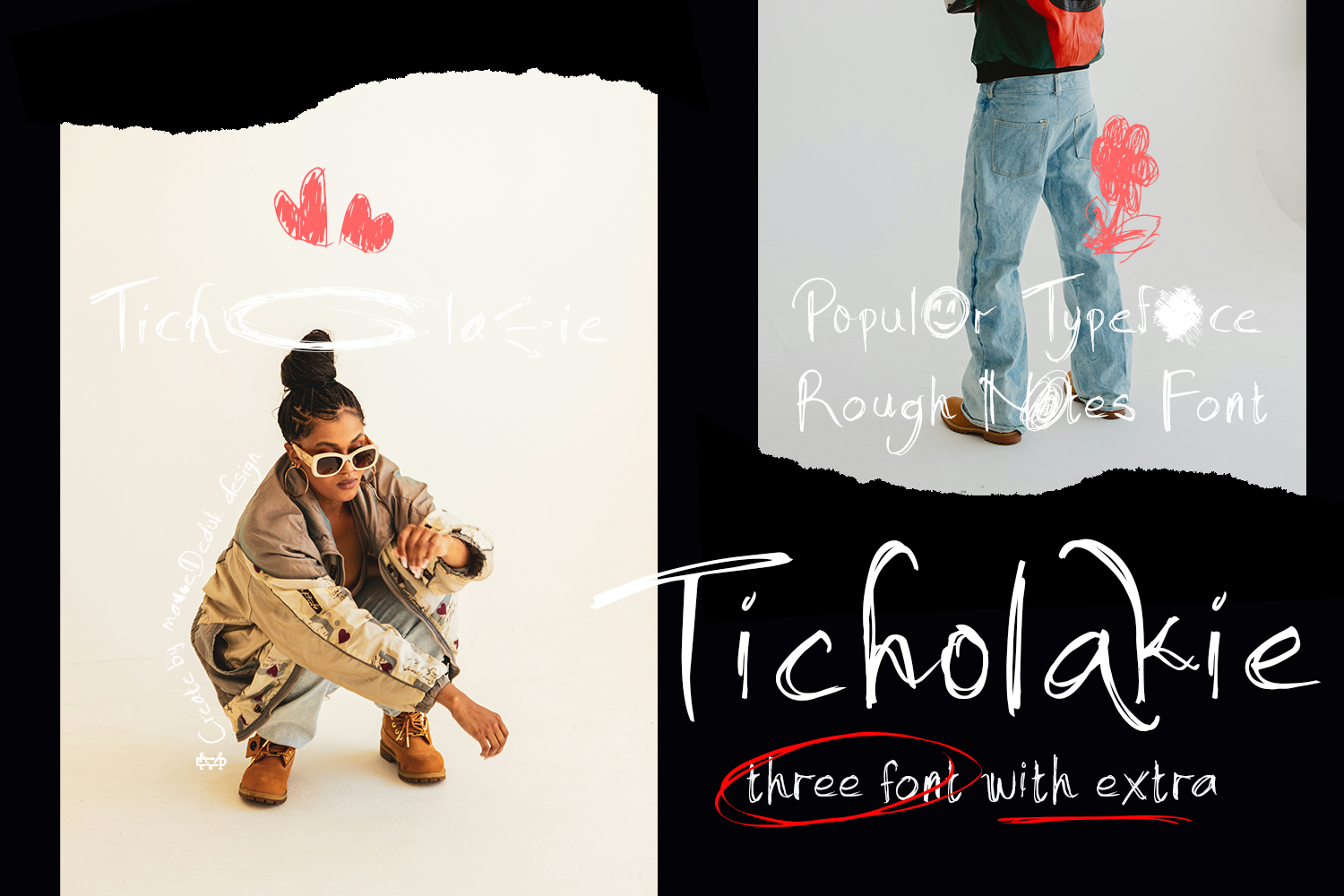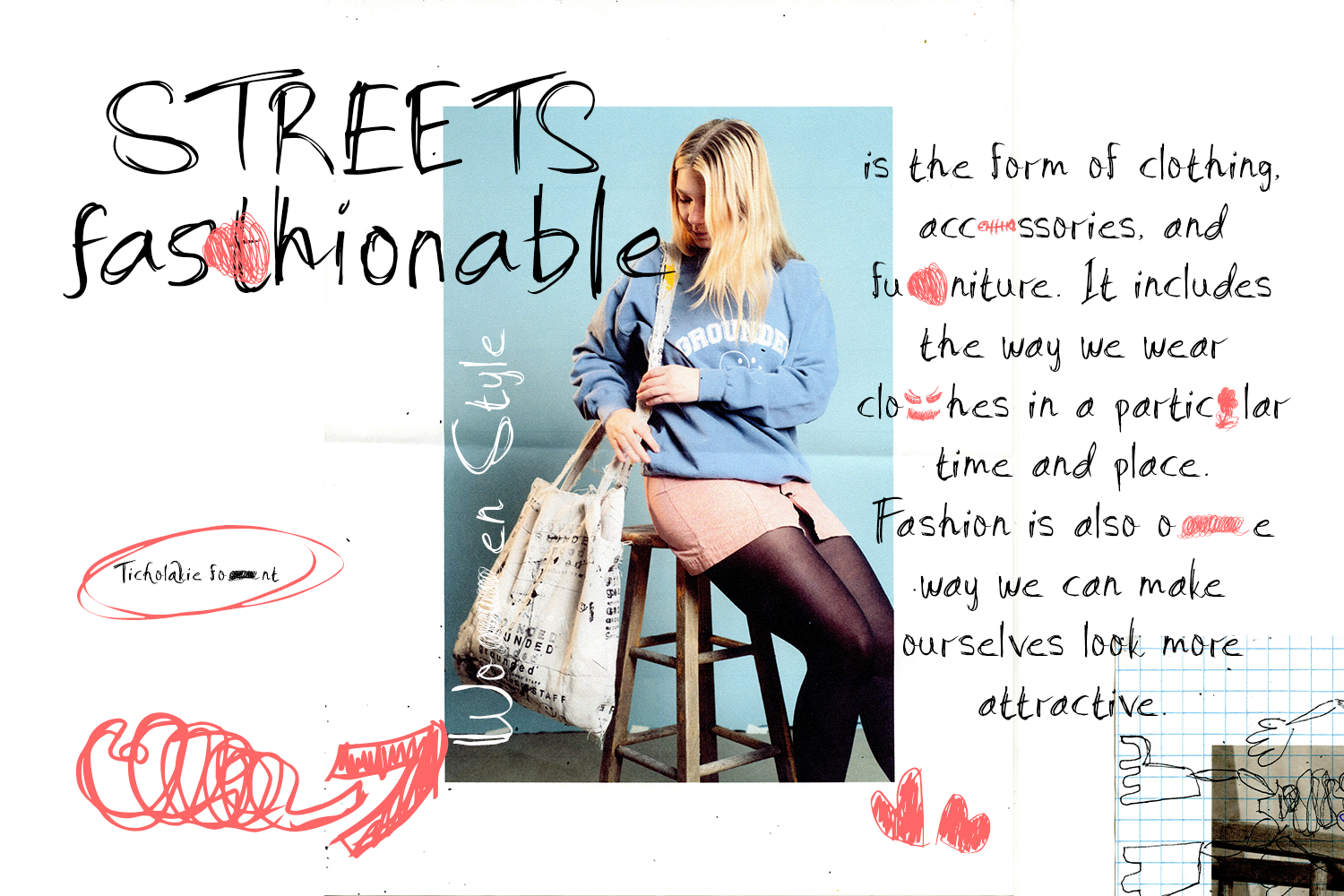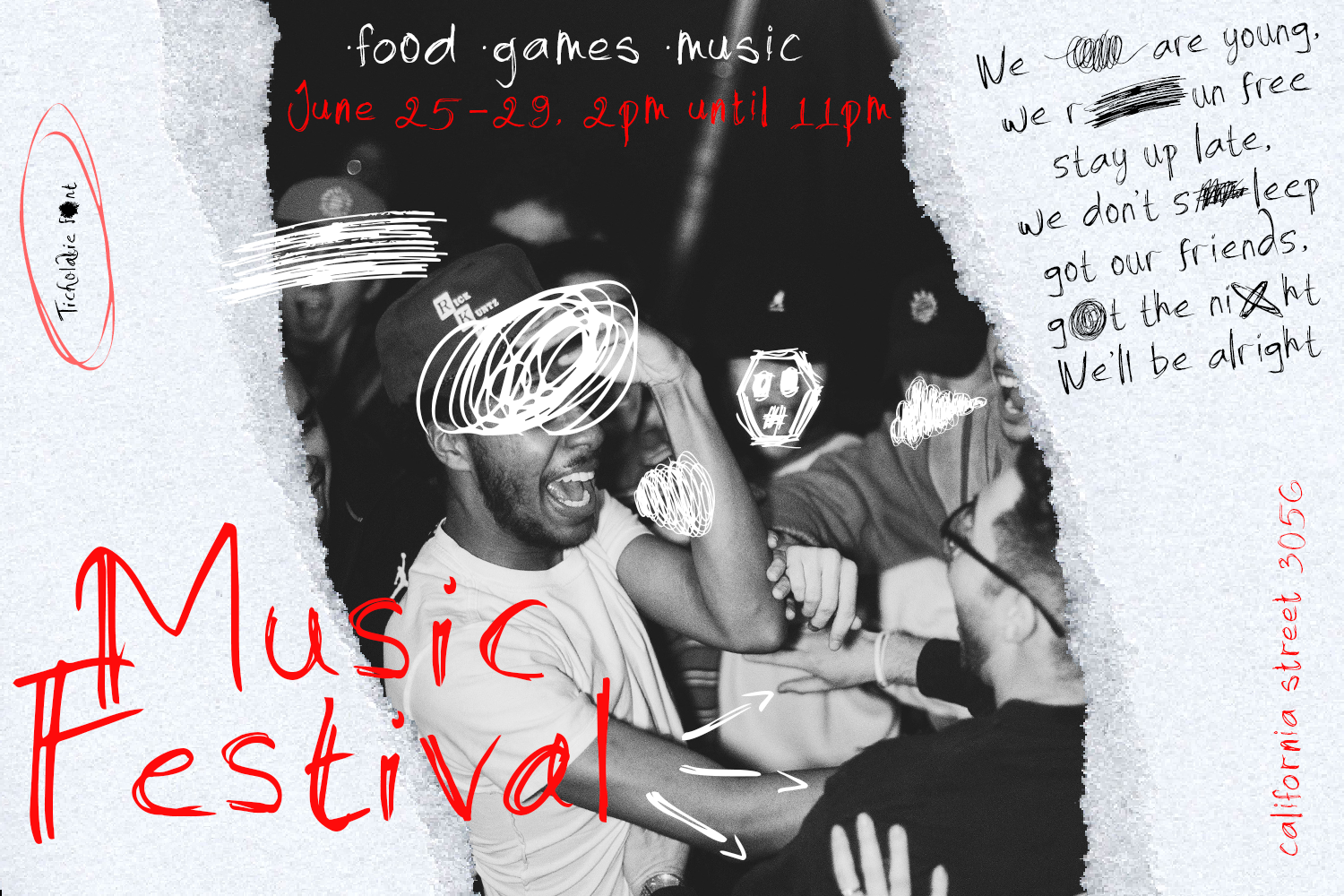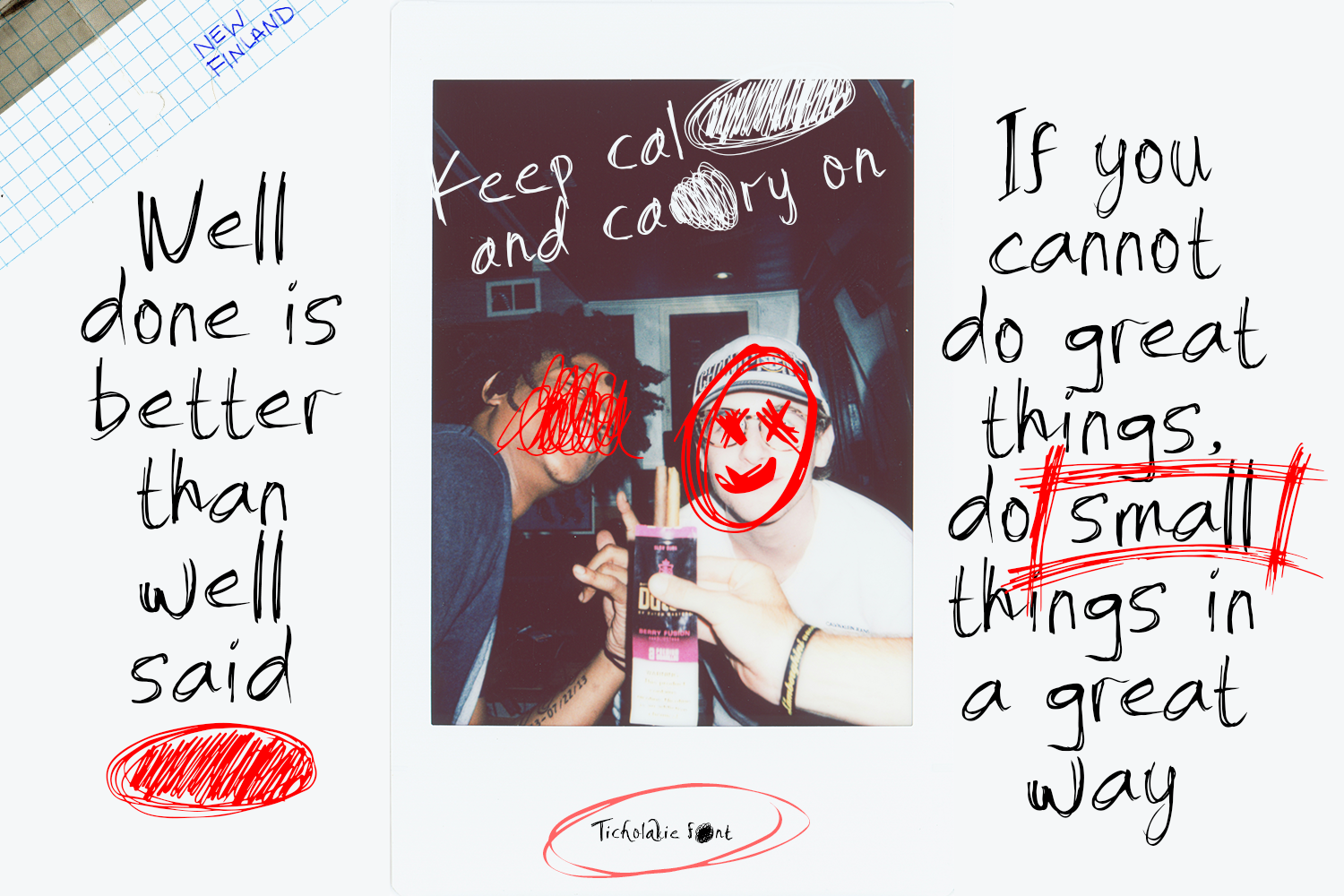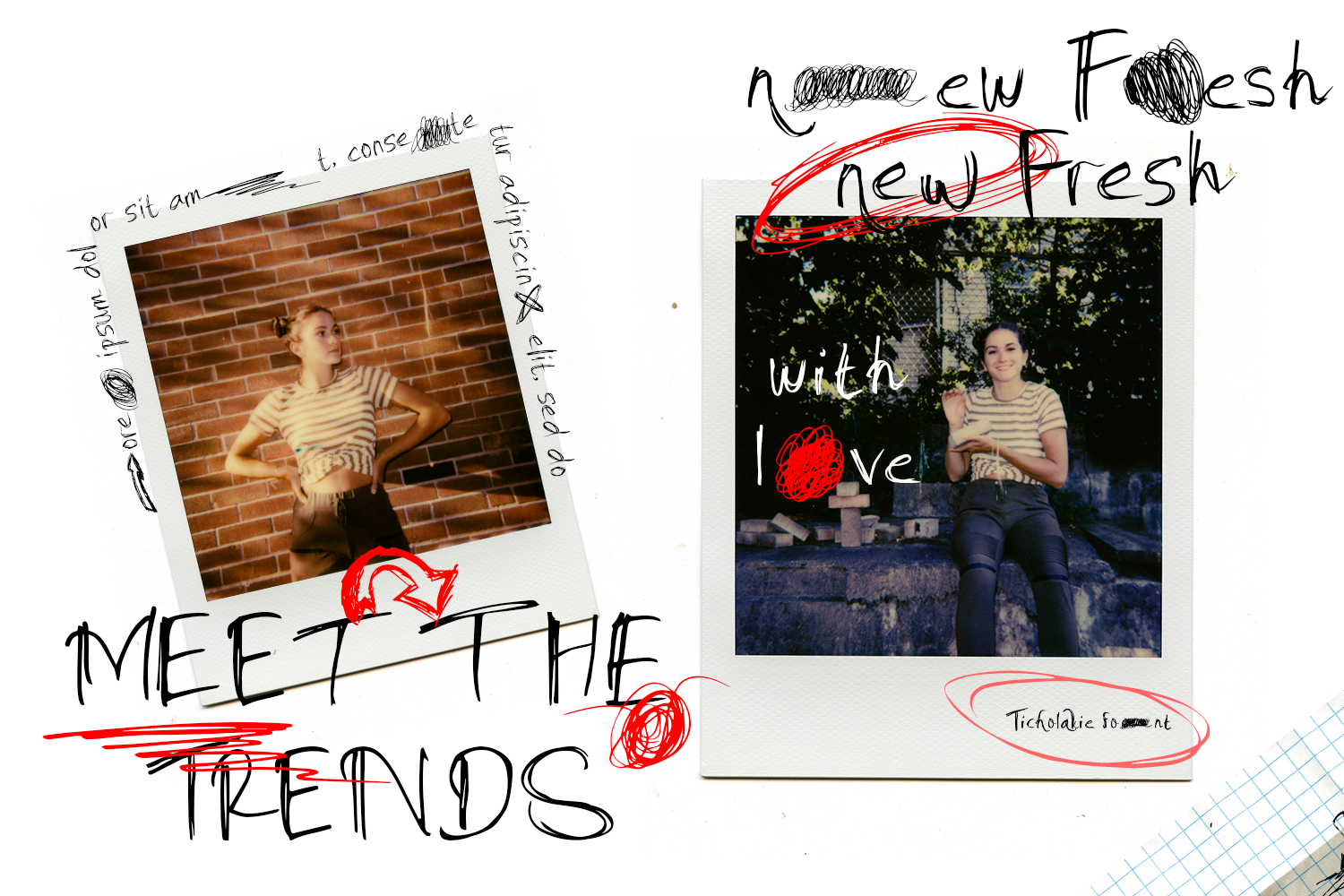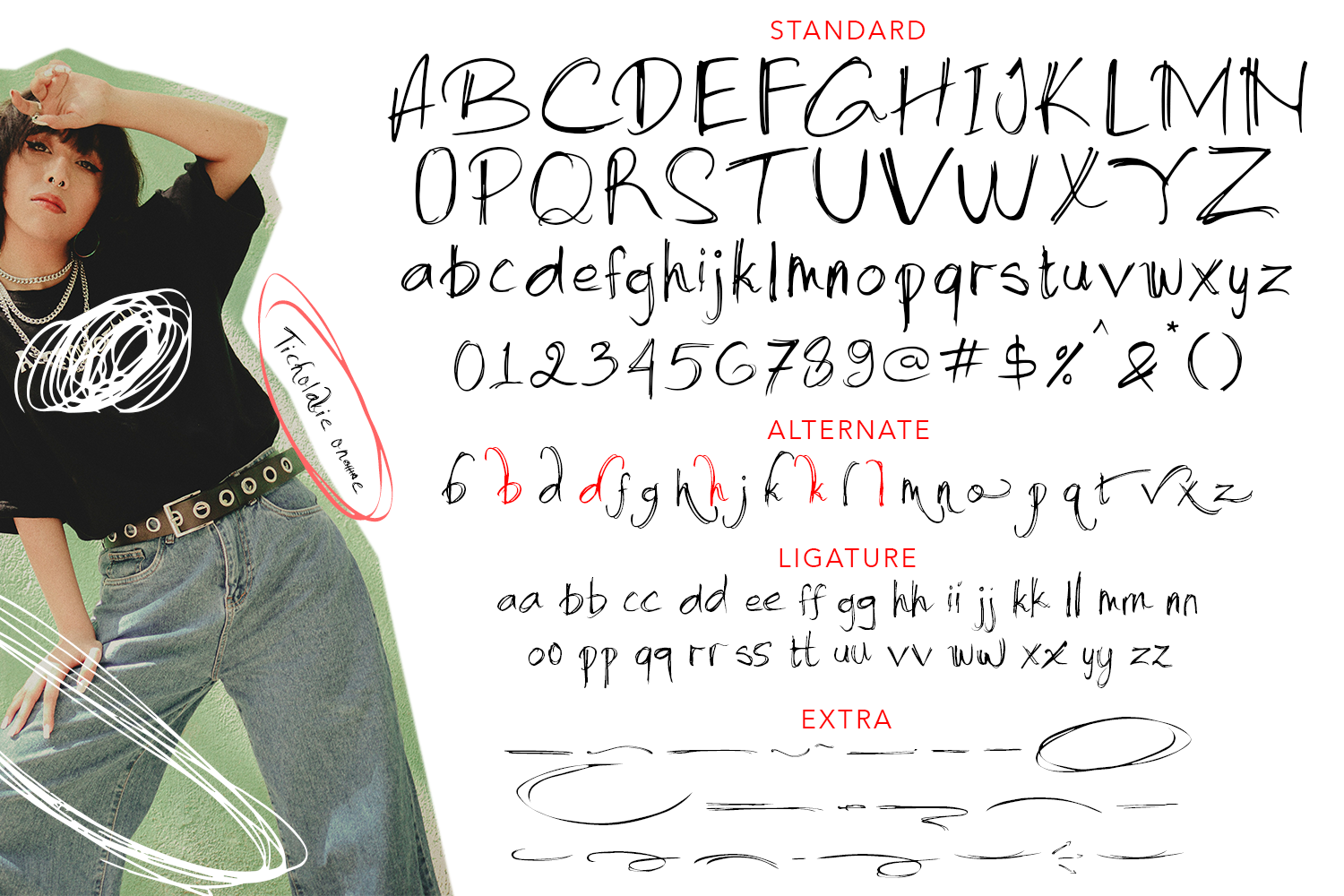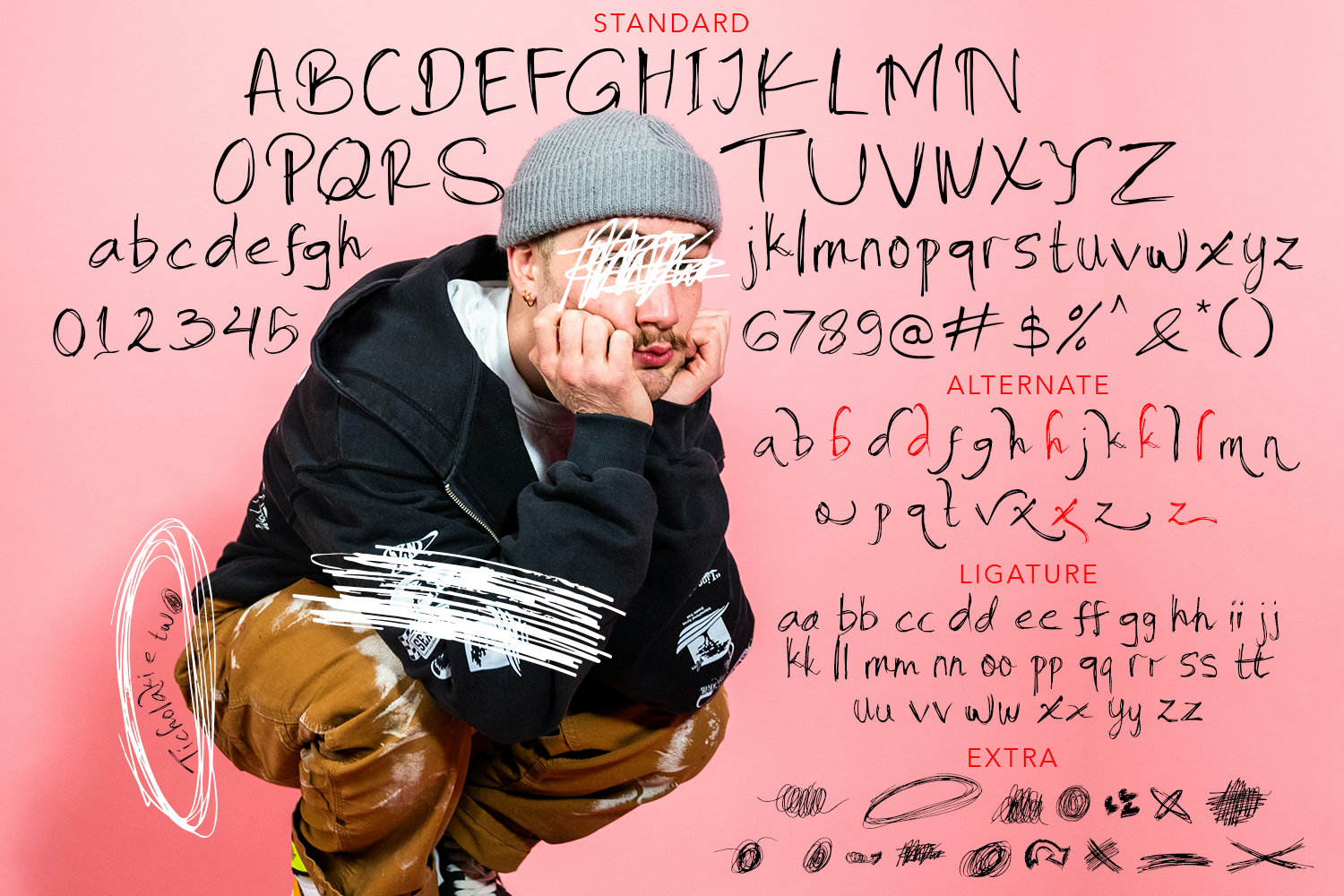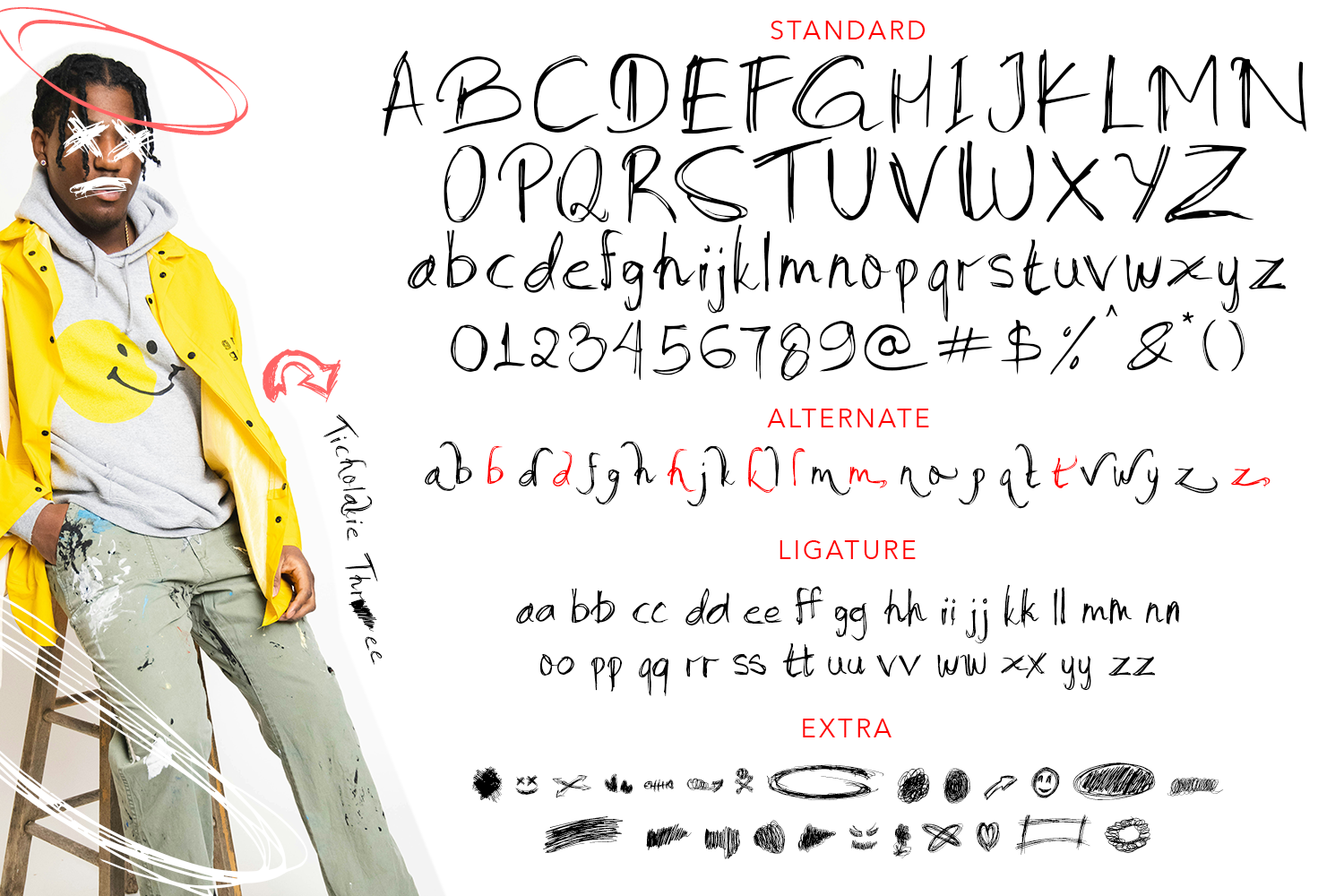
Ticholakie is a note hand drawn font come with three version contains ligatures, alternative and extra which will make your design truly written by the designer himself. Ticholakie is great for branding, posters, logos, invitation, writing and headings.
- Multilingual support